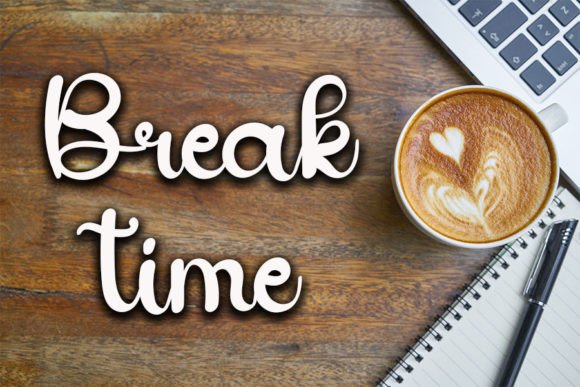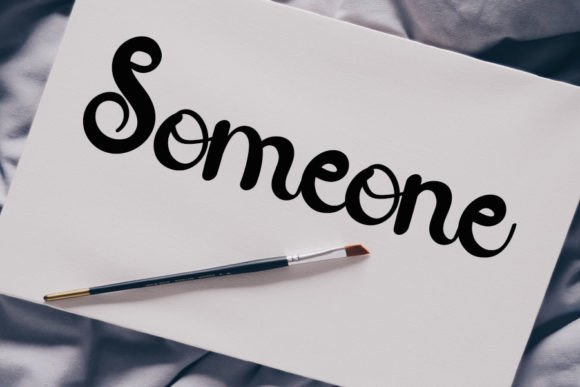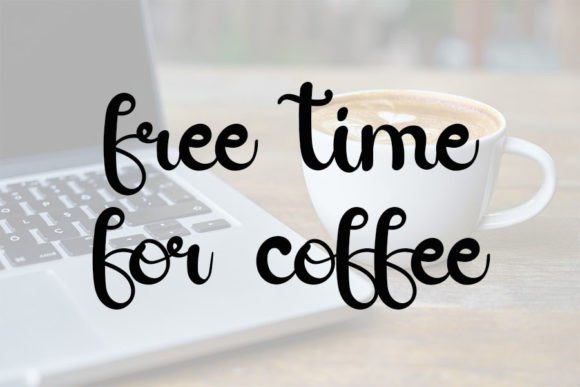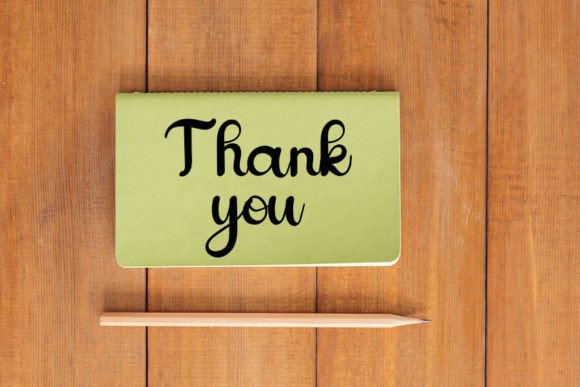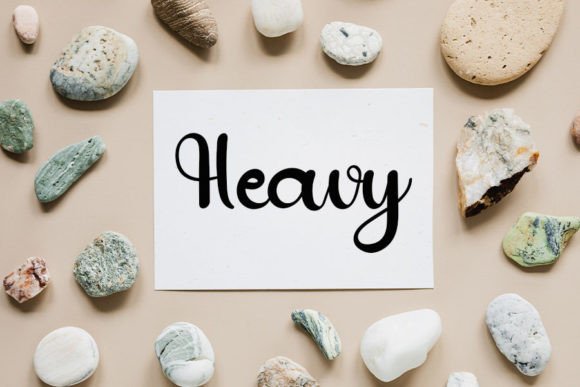
White Coffee Font
About White Coffee Font
White Coffee is a magical handwritten font that blends a clean style with a quirky charm. Crafted with care and a hint of elegance, this font brings a unique personality to your design work. Whether you’re working on personal projects or client branding, the White Coffee font download ensures your text will stand out with warmth and style.
A Perfect Balance of Clean and Playful
The letterforms in White Coffee are smooth, slightly whimsical, and visually engaging. Its balance of simplicity and charm makes it easy to read while adding a touch of uniqueness to every character. It captures the casual essence of handwriting without losing a sense of modern professionalism.
Ideal Uses for Designers and Creators
The White Coffee font is versatile and adaptable, making it suitable for a variety of creative projects:
• Logos and Branding – Add a friendly yet stylish identity to your brand
• Social Media Graphics – Perfect for Instagram quotes, stories, or promotional posts
• Product Packaging – Stands out on labels, tags, or handmade goods
• Crafty DIY Projects – Adds a personalized flair to scrapbooks, labels, and invitations
• T-shirts, Mugs, and Printables – Make your merch or Etsy shop items more appealing
• Digital Planners and Blogs – Great for digital content needing a human touch
Font Features and Technical Details
• Uppercase and lowercase characters
• Numerals and punctuation
• Multilingual support
• Smooth handwritten strokes
Why Choose the White Coffee Font?
What makes White Coffee so special is its ability to feel both personal and polished. Whether you’re designing for a client or for yourself, this font adds authenticity and character to any composition. Its organic strokes and graceful spacing make it one of the best choices for handwritten typography lovers.